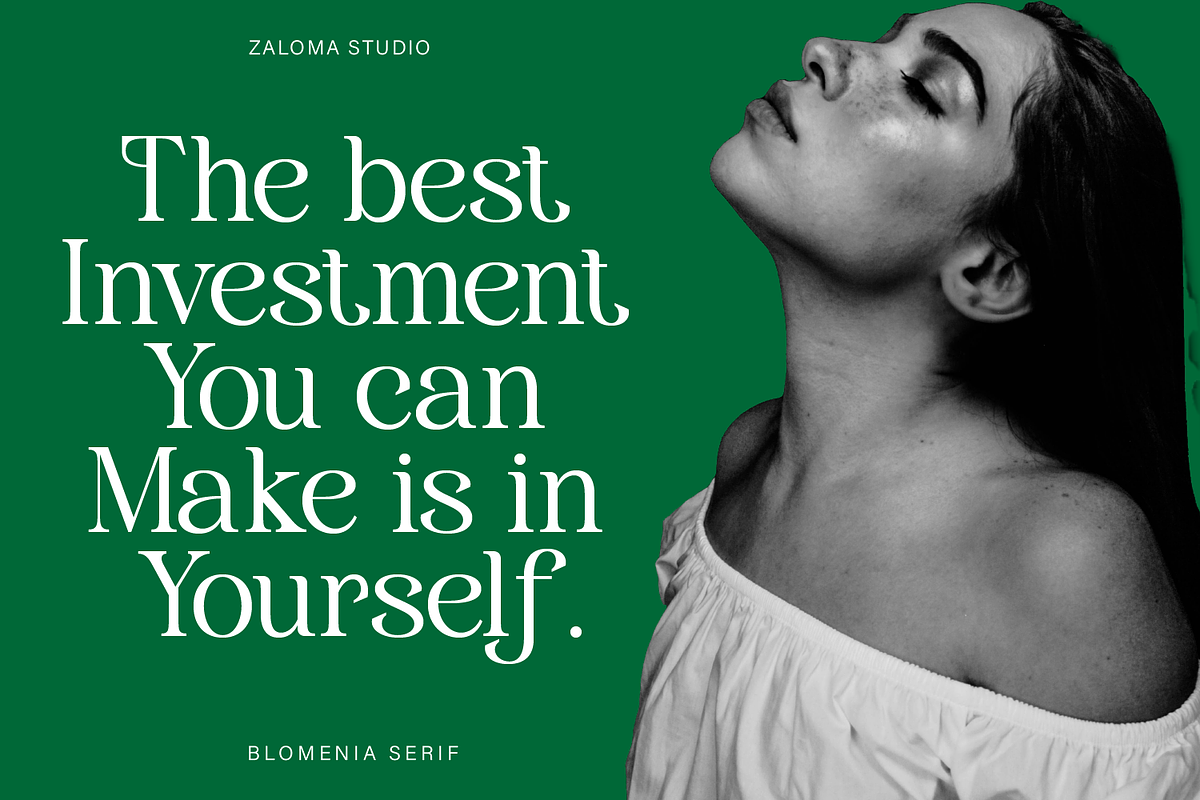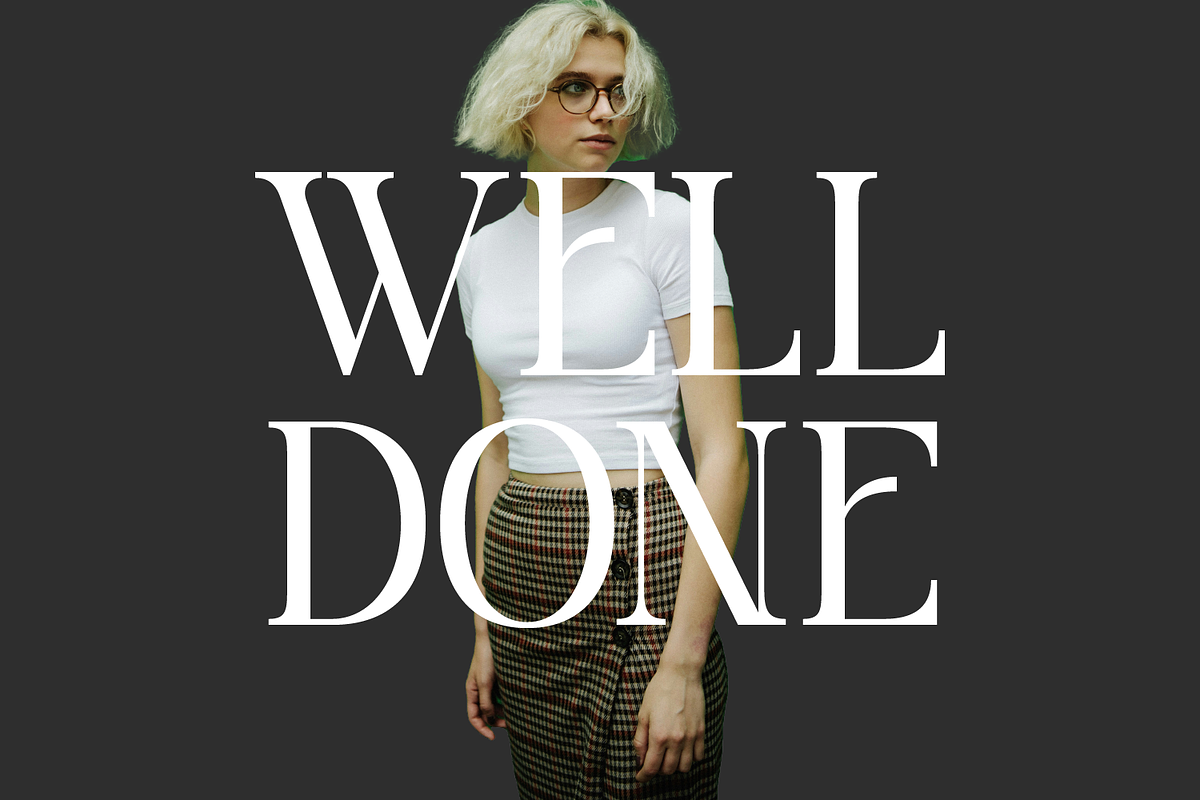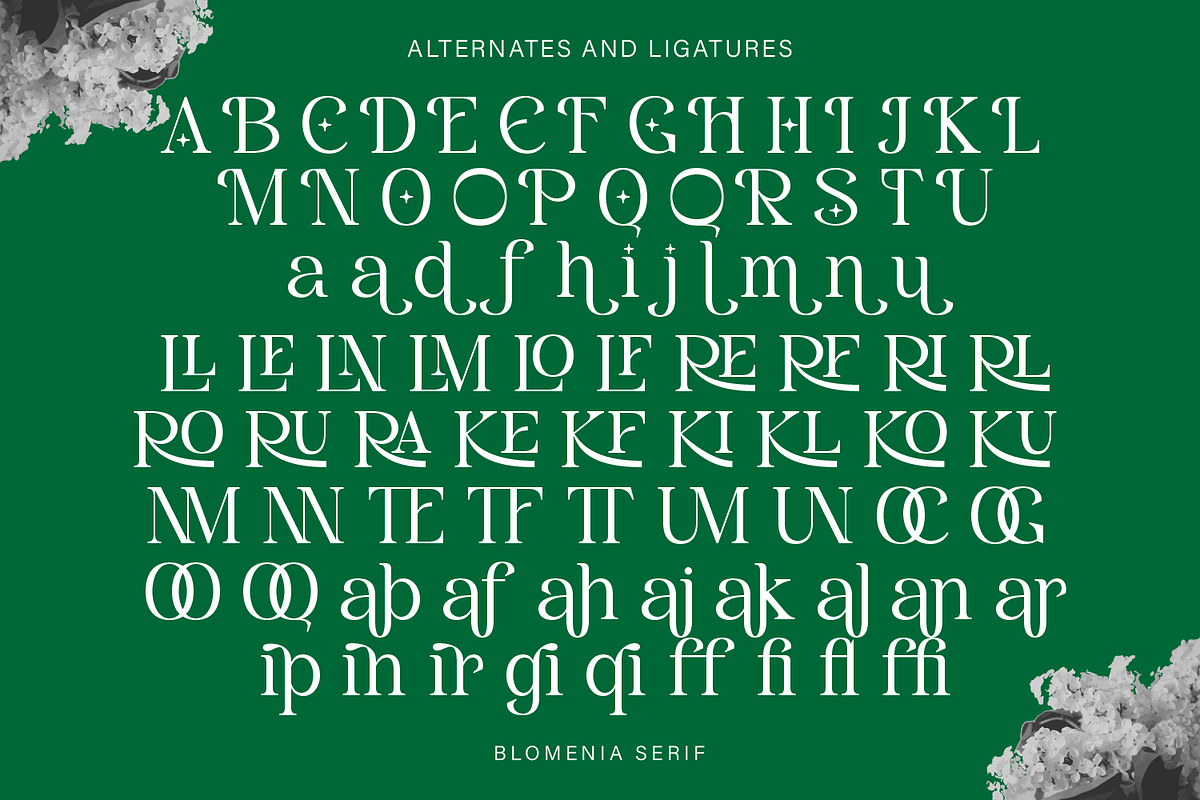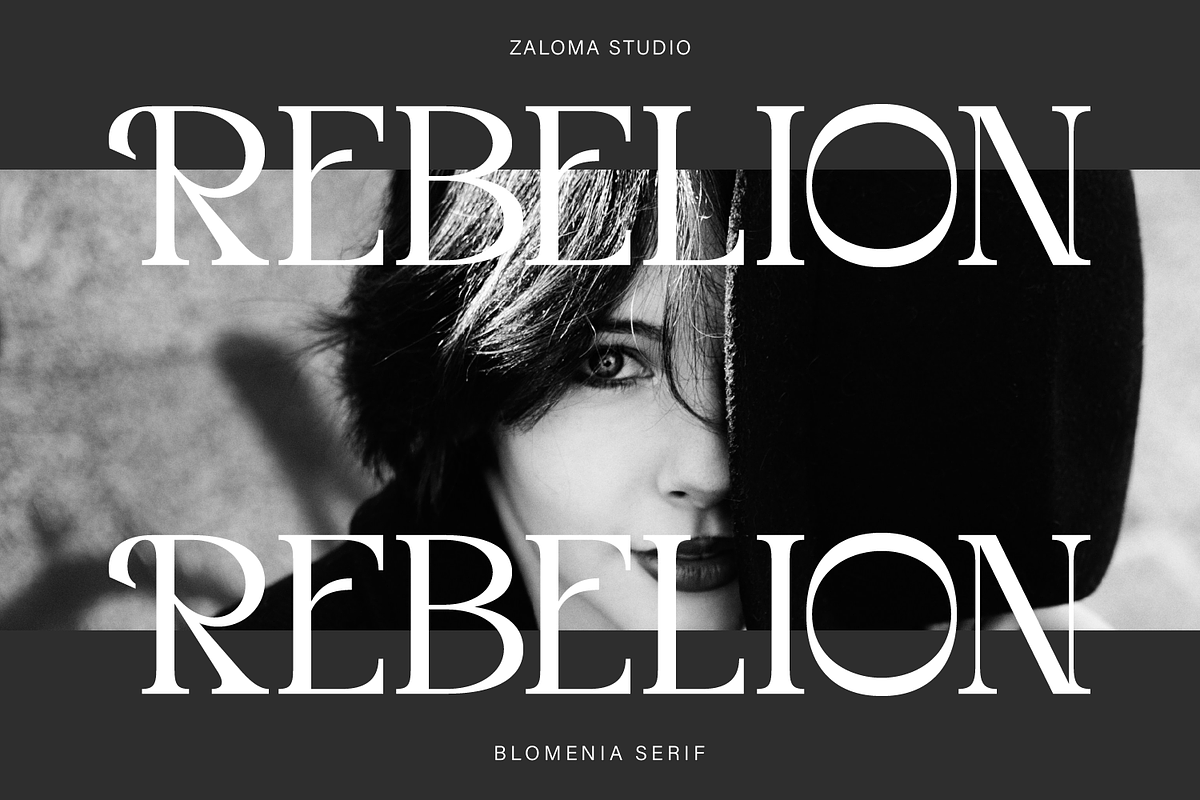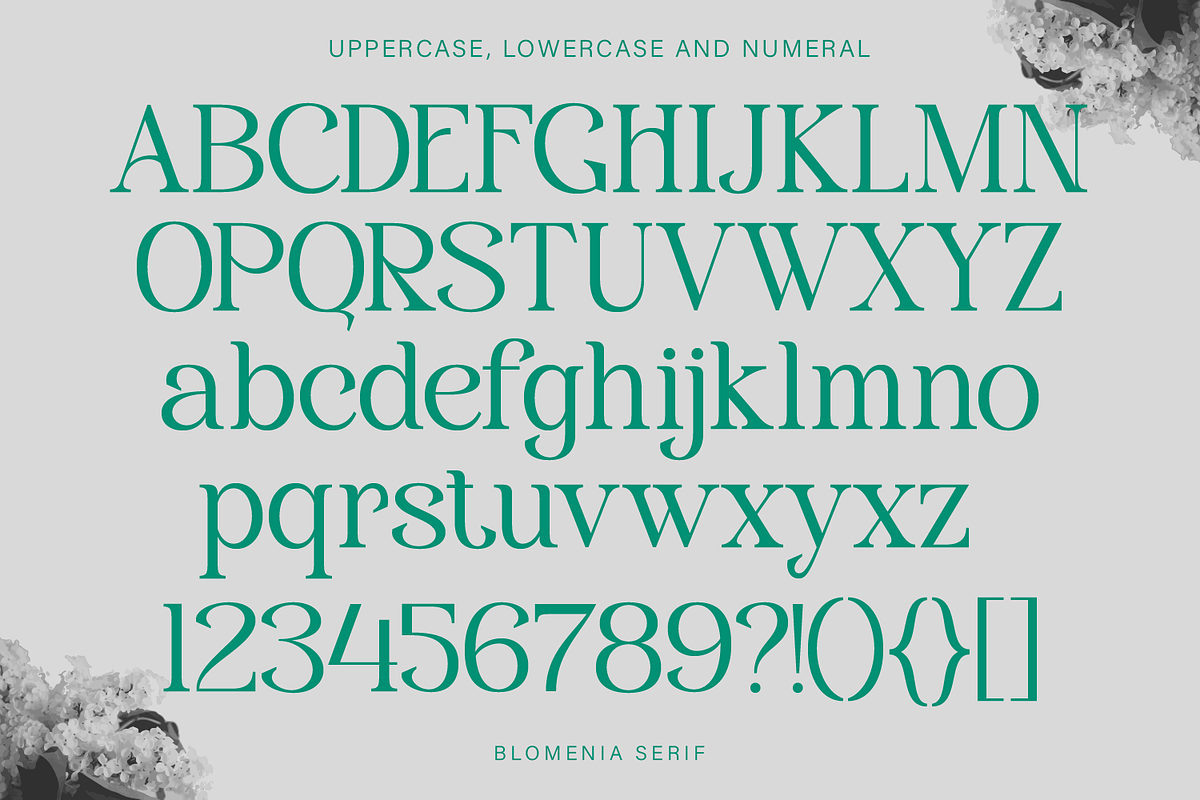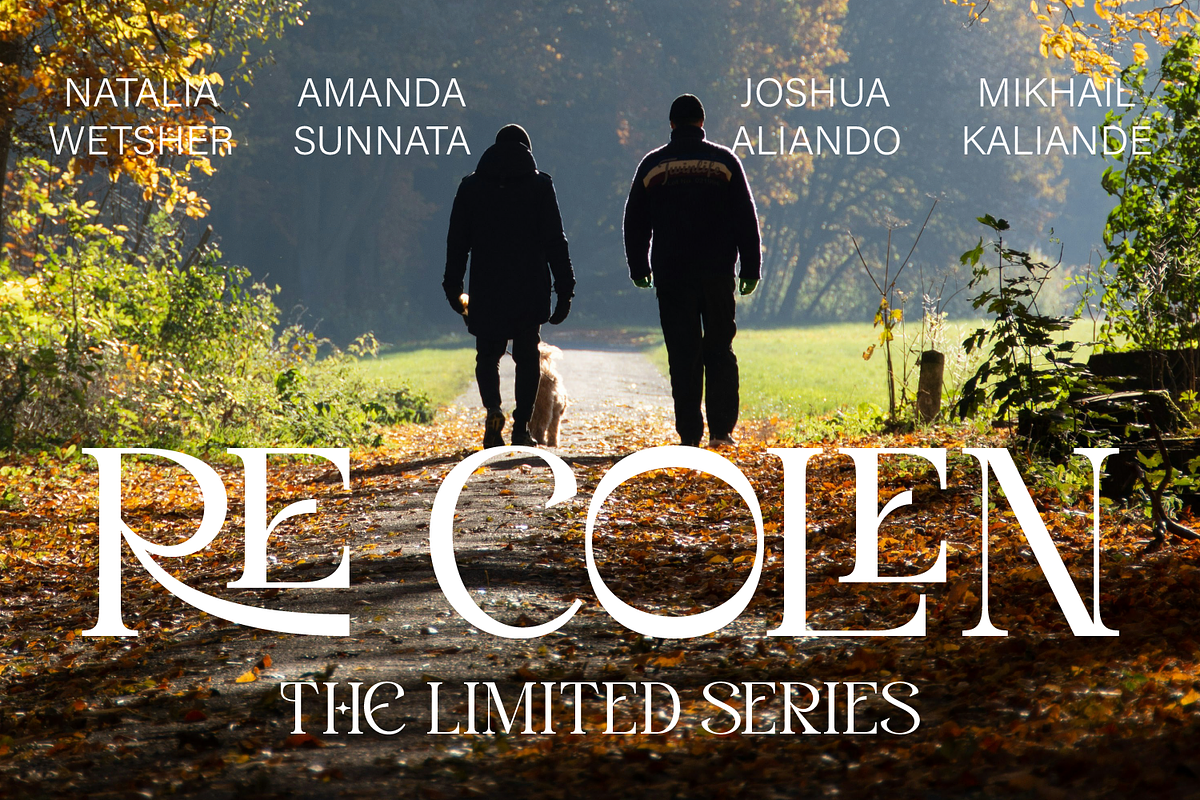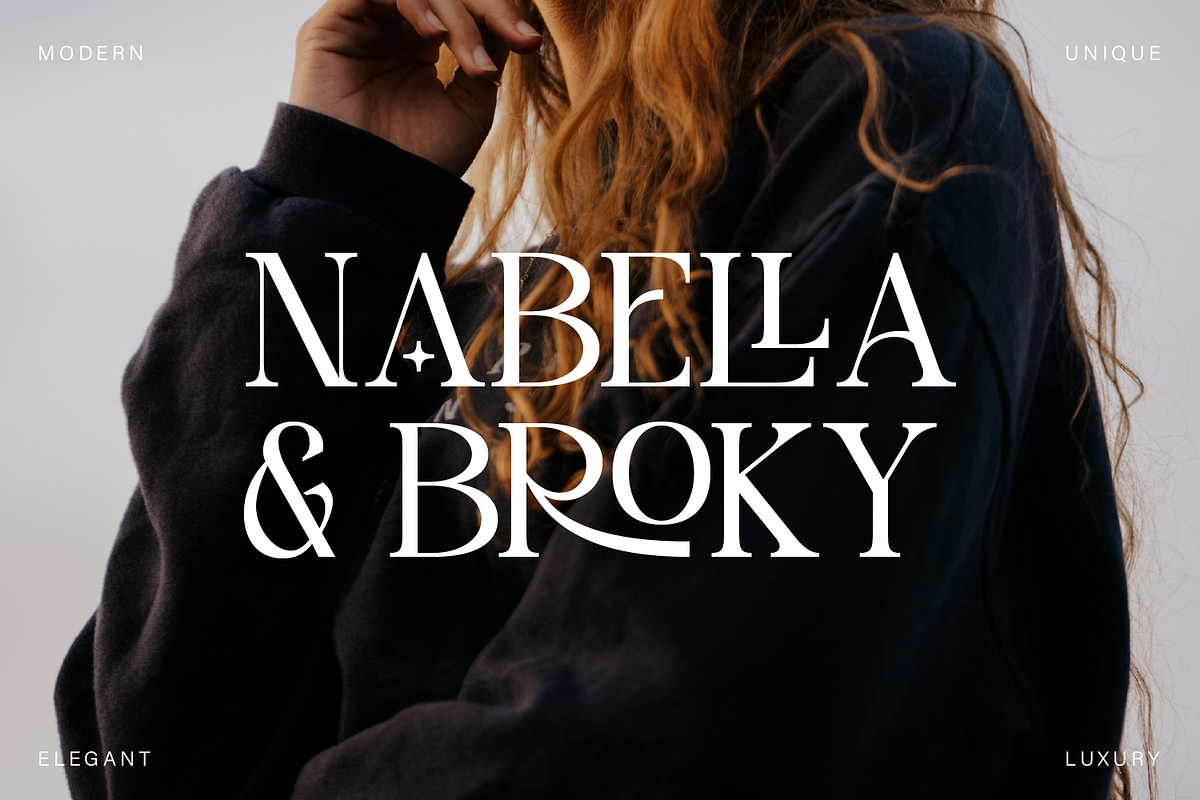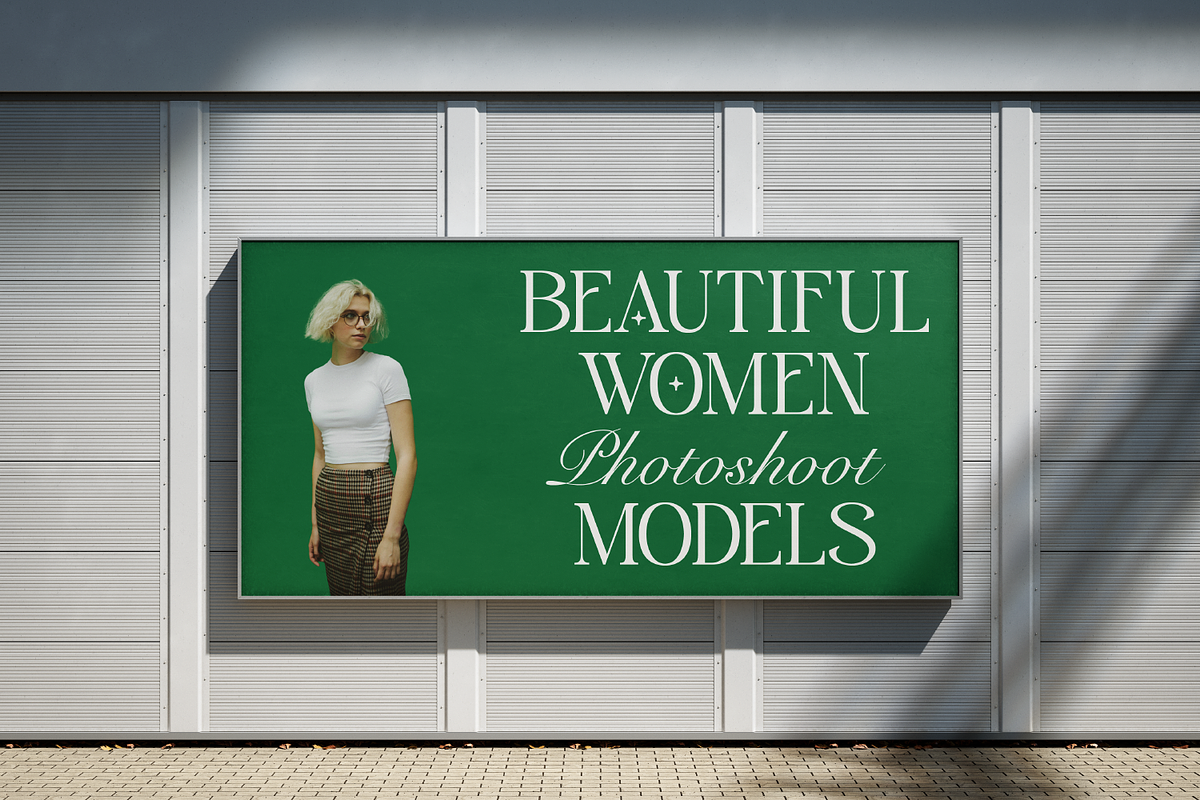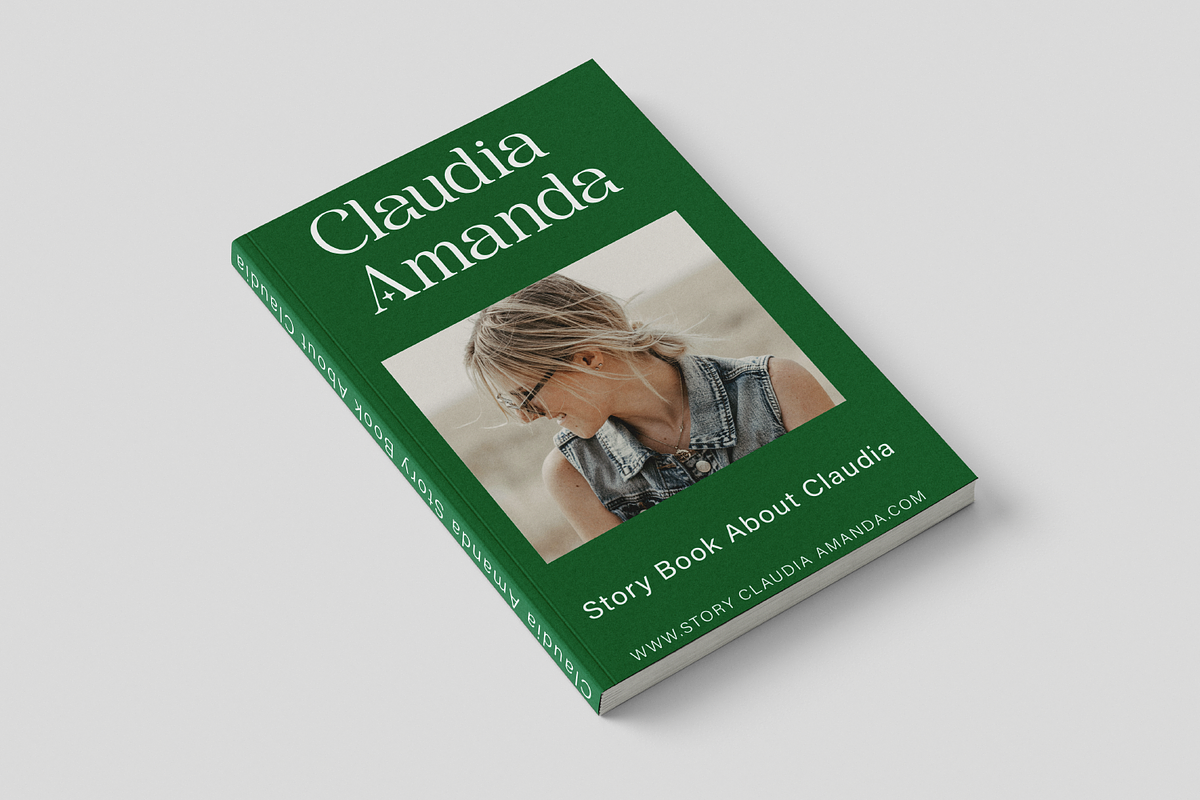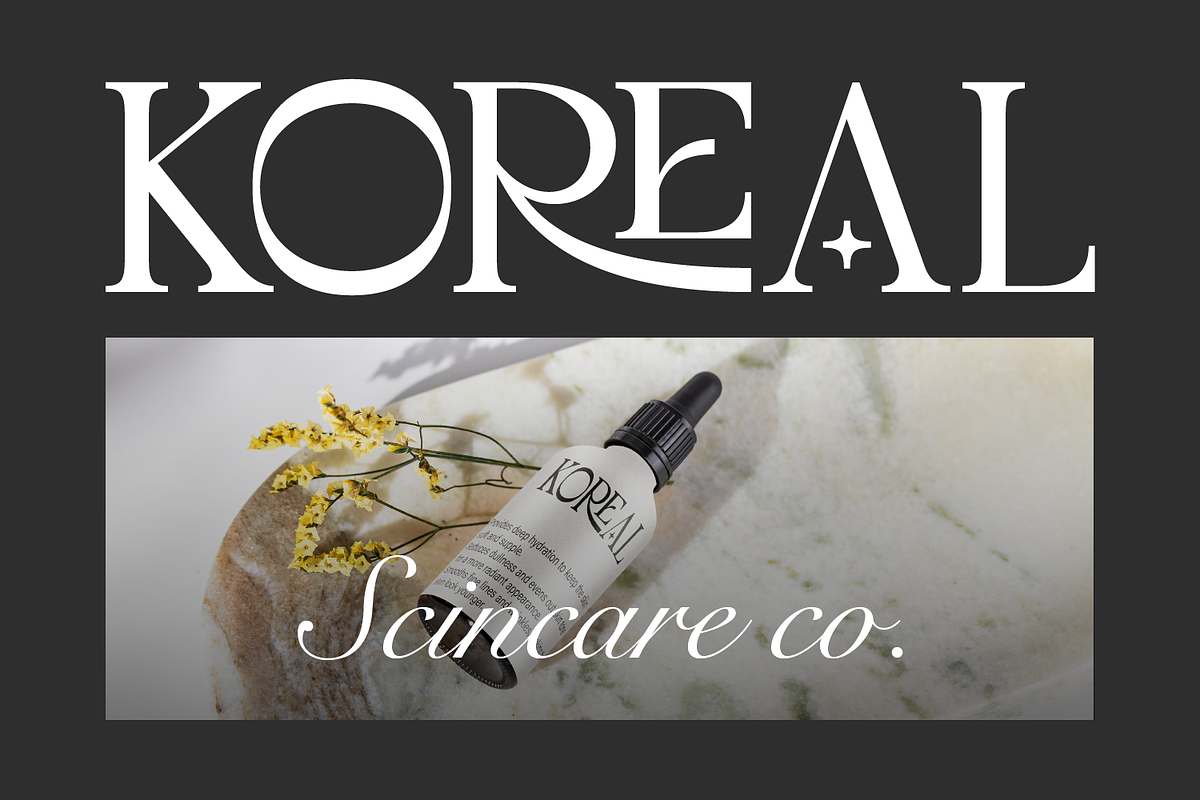
Blomenia
Blomenia is a modern serif font that combines classic elegance with a contemporary touch. With a design rich in ligatures and alternates, Blomenia offers high flexibility in typography design, making it perfect for branding, logos, product packaging, wedding invitations, and various other creative projects. This font features bold yet soft letterforms, with distinctive details that create a luxurious and exclusive impression. Each letter is designed with elegant proportions, achieving the perfect balance between beauty and readability.